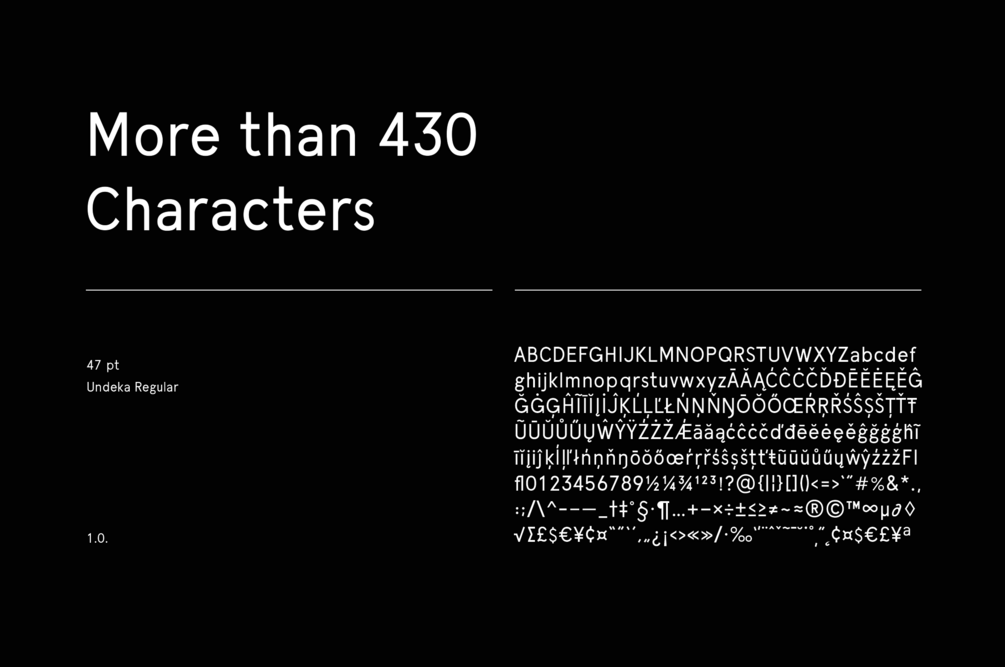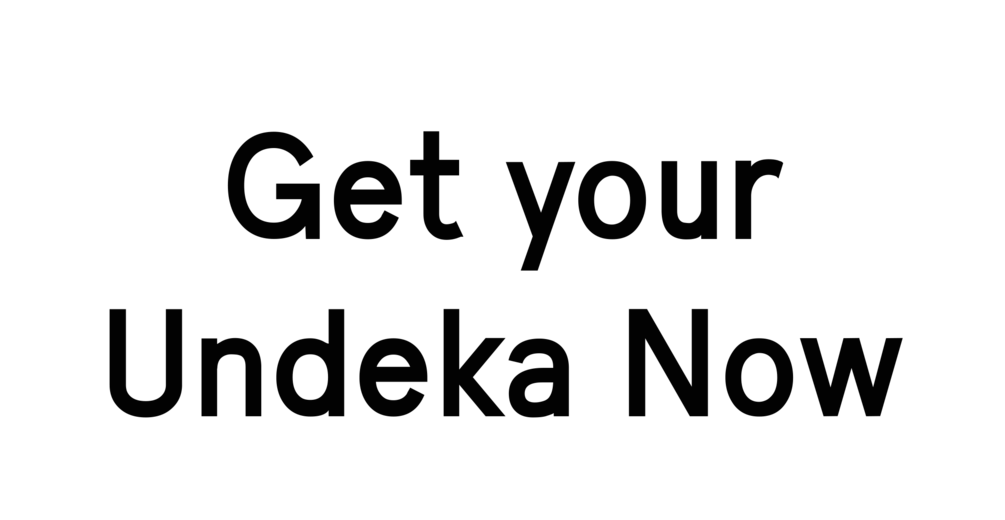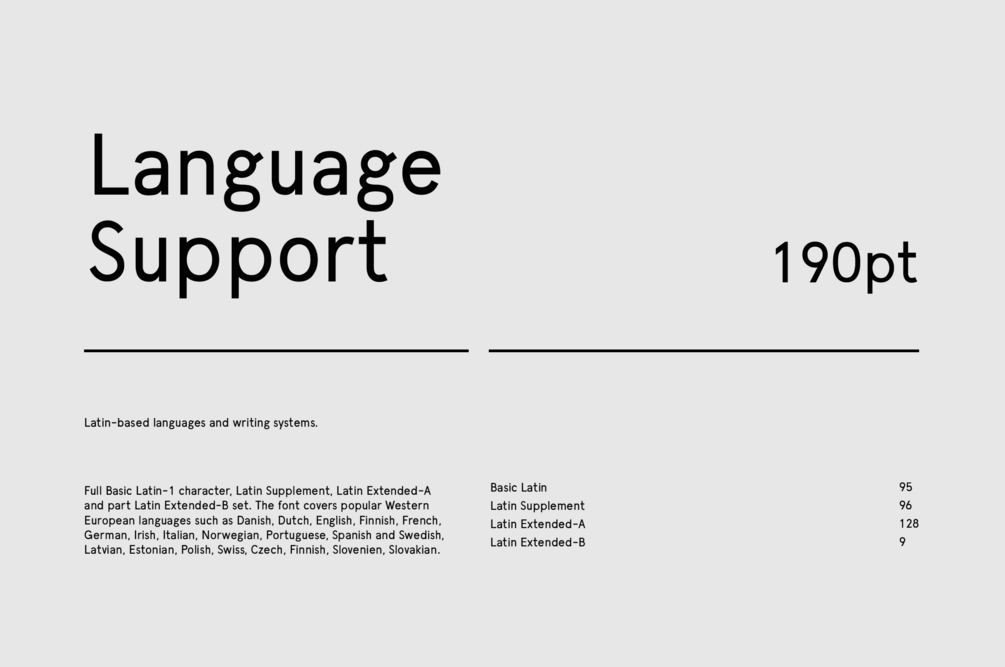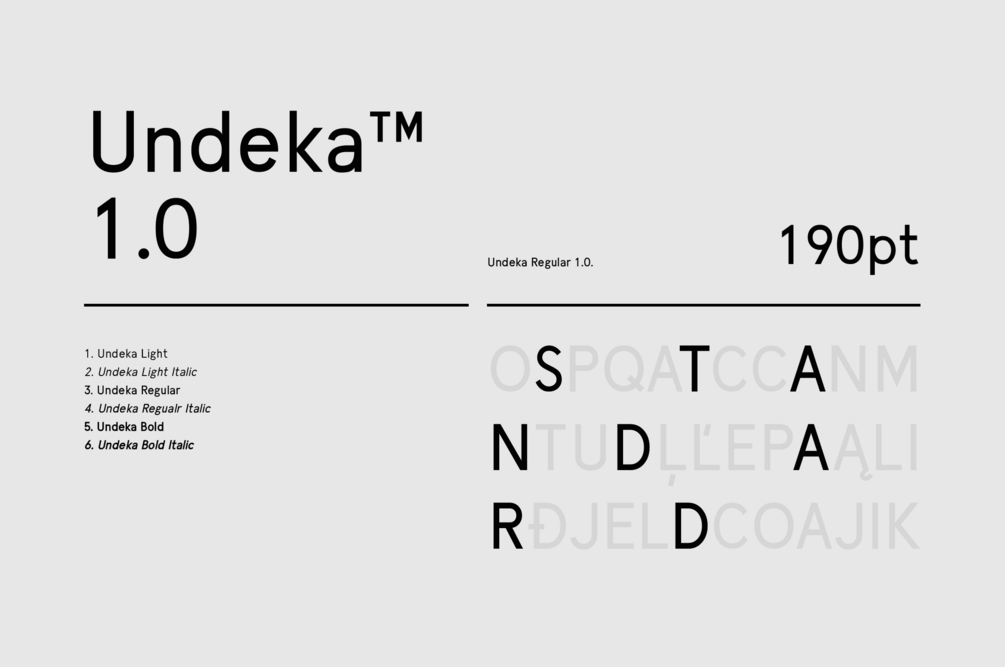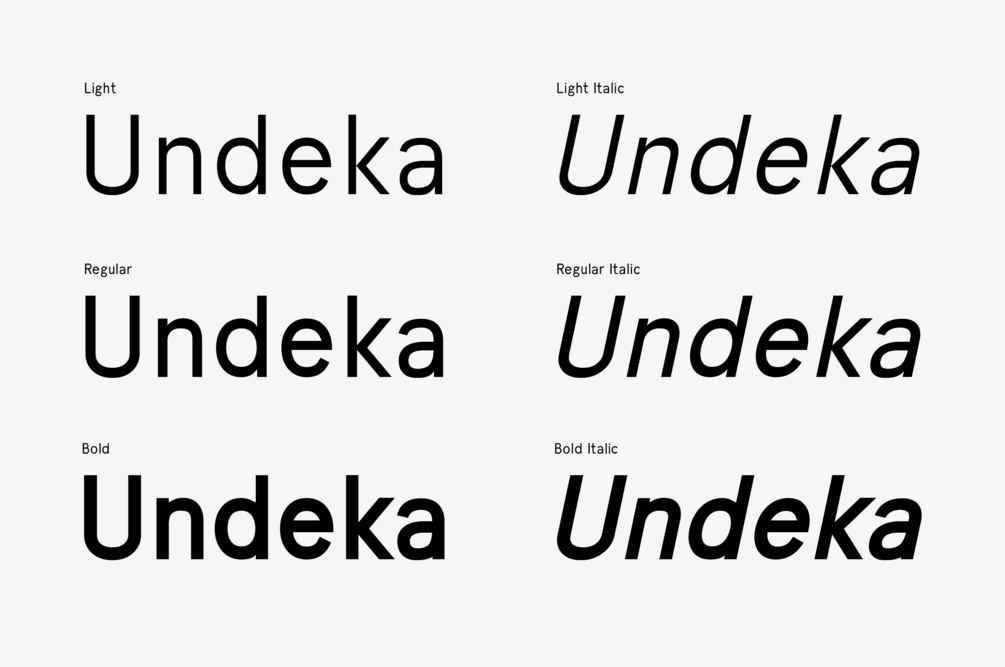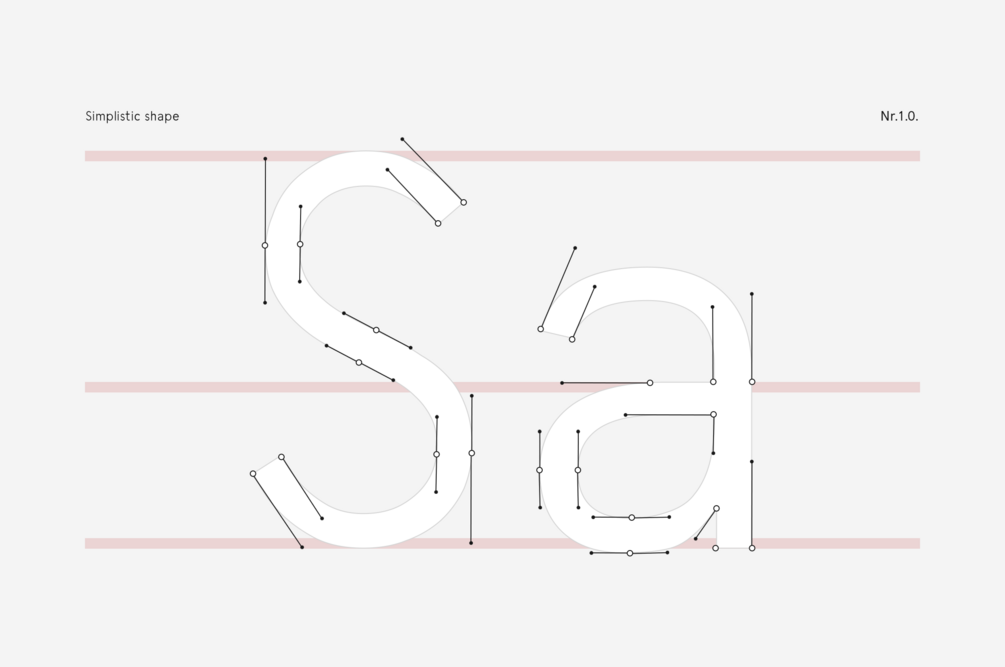
Undeka Full Family (6 Fonts)
Undeka™ is a modern contemporary sans serif typeface that embodies simple geometric shapes combined with strong typographical foundations. Inspired be the grotesk typefaces made in the early 20th century. It was made by Krisjanis Mezulis at the WildType Foundry. Undeka is available in 6 different versions - Regular/Italic, Light/Italic, Bold/Italic.